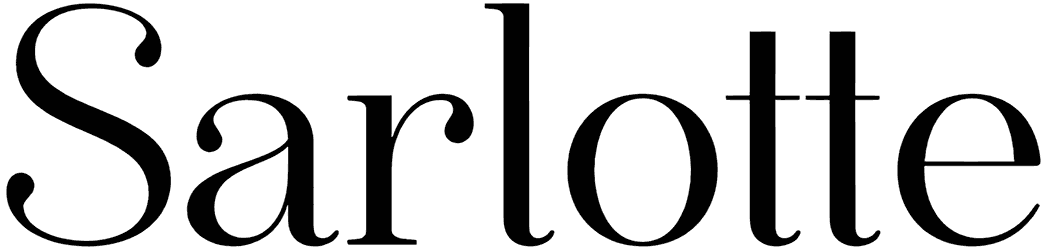
Sarlotte Font
How do you like some magic in your lettering? Let’s face it, the letters of Sarlotte may not exactly be at the point of flourishing, but they do seem to be blooming. If that’s not magical, what else is?
Sure, you can think of plenty of different things to do with Sarlotte, the magically flavored serif font we’ve been talking about. Let’s see. Why don’t you start by placing it in your poetry book covers, restaurant logos, or photography studio websites?